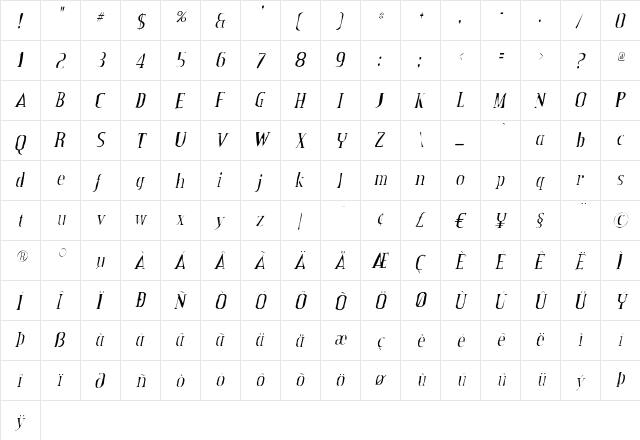
Credit Valley Gaunt Italic
Design Context for Credit Valley Gaunt Typeface
Credit Valley Gaunt takes a measured approach to typography — its balanced proportions and neutral character make it a reliable workhorse for both digital and print work. The slanted form adds forward momentum and visual energy.